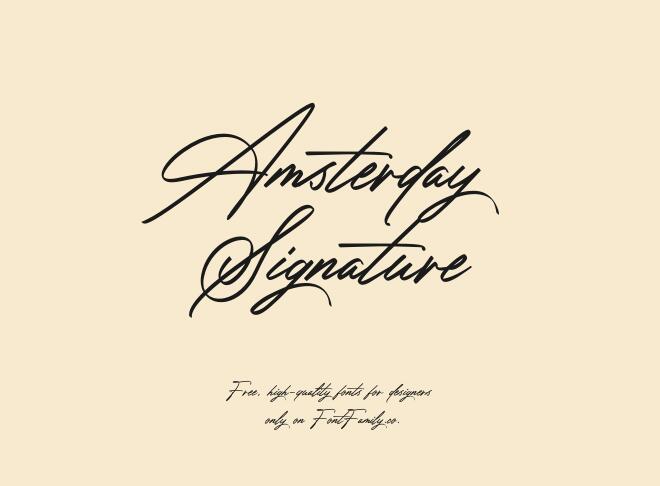
Amsterday Signature Font
Amsterday Signature Font, a unique handwritten script designed by Creative Market, is an elegant and modern typeface that adds a personal touch to your designs. With its organic feel and flowing curves, it perfectly mimics the natural variations of handwriting. This font is perfect for branding, logos, wedding invitations, and personal correspondence. It is reminiscent of other popular handwritten fonts, but its unique signature style sets it apart. Amsterday Signature Font is a versatile choice for designers who want to add a touch of sophistication and modernity to their work. The font is available for commercial use, making it an ideal option for businesses seeking a unique and professional look.